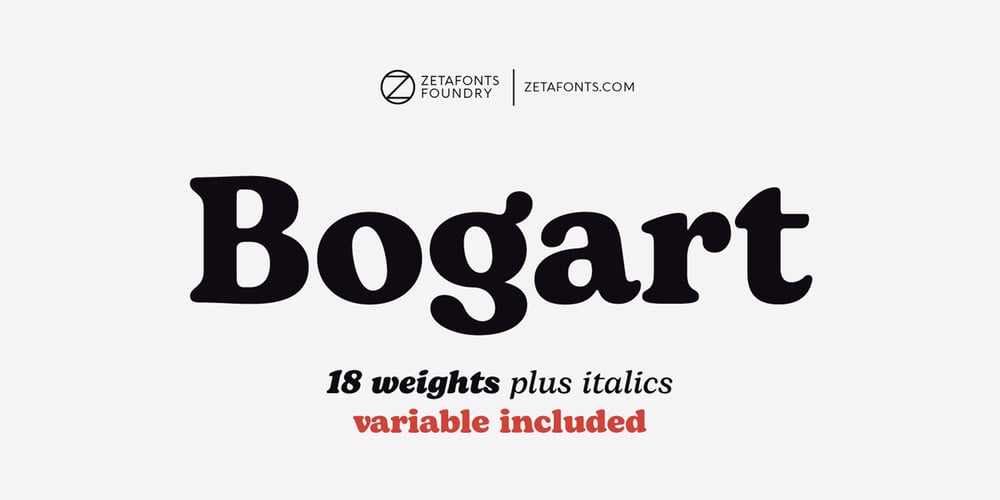
Bogart Font Family was designed by Francesco Canovaro, Andrea Tartarelli and published by Zetafonts. Bogart contains 29 styles and family package options. All the nine weights of Bogart, as well the matching true italics forms, feature an extended charset of over 1600 glyphs, covering 219 languages using latin, cyrillic and greek alphabets, and sporting a complete set of Open type features . To add flexibility for editorial usage, a text-oriented Bogart Alternate set of nine weights was added to the family keeping the design more similar to its modern old style model and allowing for a heavy readable mid-weight range.